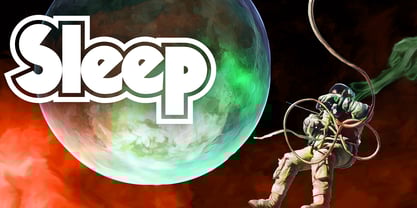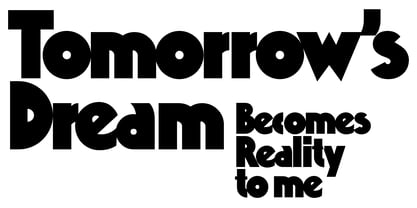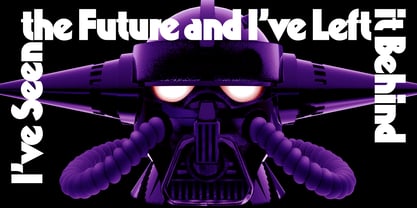
VolumeFour
von Ryan Corey
Die Schriftfamilie VolumeFour wurde von Ryan Corey entworfen und von Ryan Corey veröffentlicht. VolumeFour enthält 1 Stile.
VolumeFour is a heavy, geometric sans-serif display face inspired by the custom lettering which adorns Black Sabbath's groundbreaking "Vol 4." Its bold forms and naturally tight spacing evoke the era which spawned such classics as "Snowblind" and "Supernaut", bringing this aesthetic to a contemporary audience.